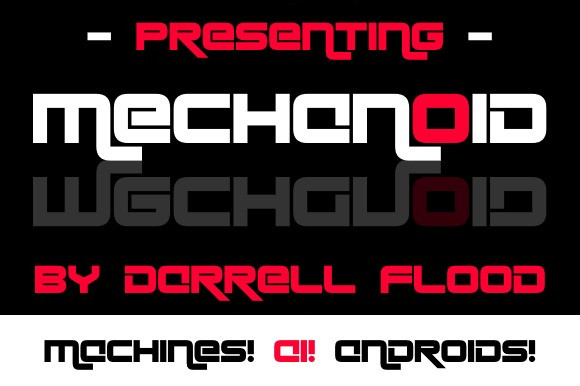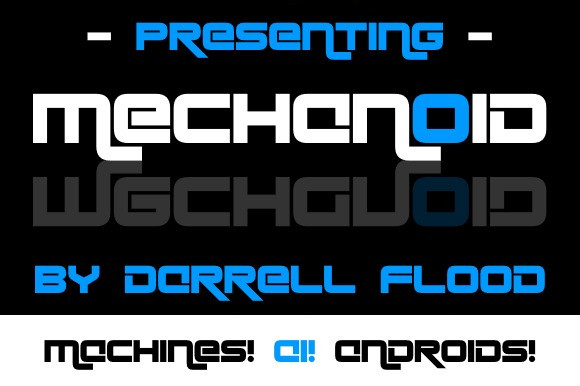
Mechanoid Font
Mechanoid Font – A slick sci-fi font in an overlapping neon-like style. Perfect for futuristic themes, high tech presentations and modern music gigs!